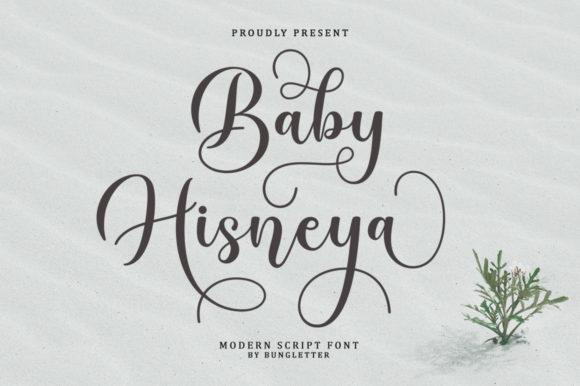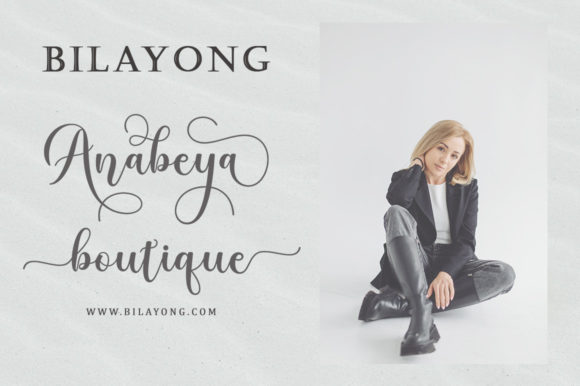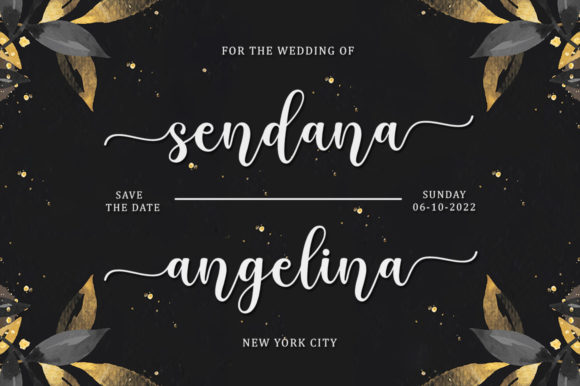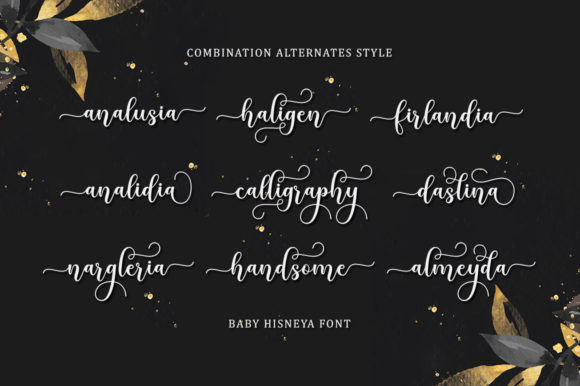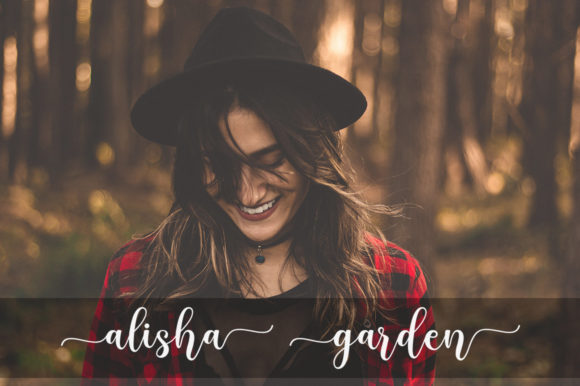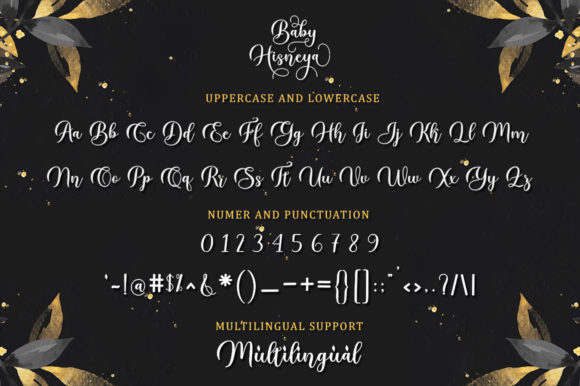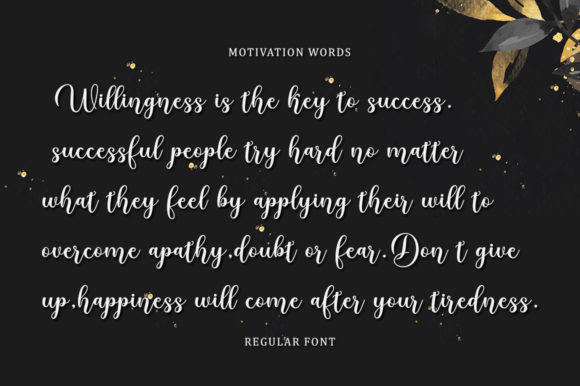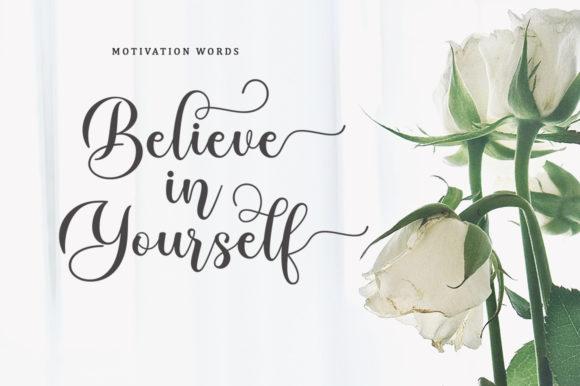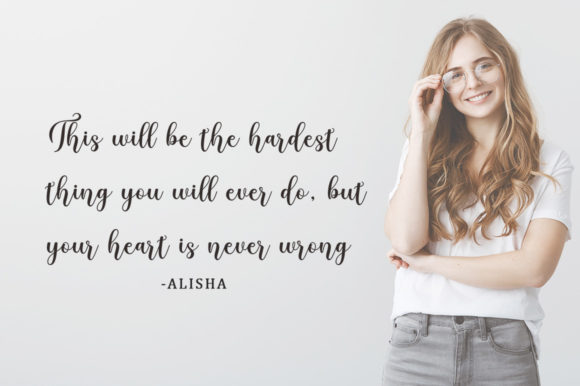
Baby Hisneya Script is a modern calligraphy font featuring basic variations, fine lines, and beautiful and elegant touch.
Baby Hisneya is attractive because it has to be clean, feminine, sensual, glamorous, simple, and very easy to read because there are many fancy letter joints.